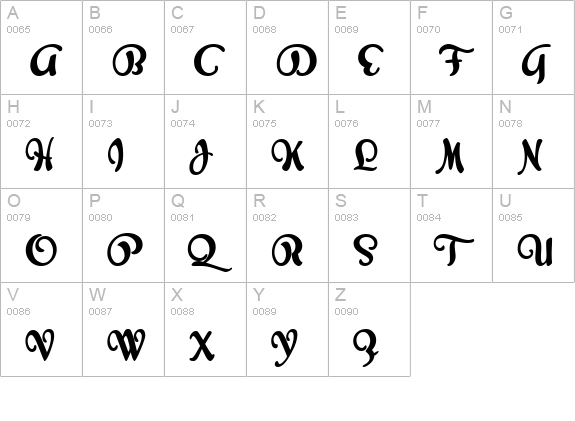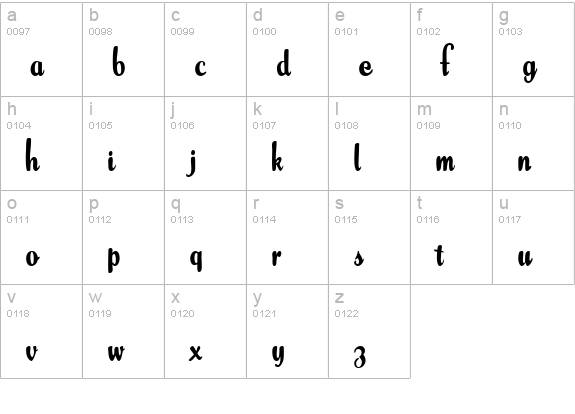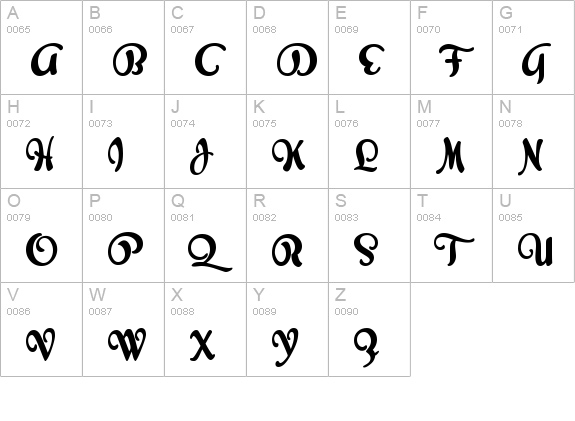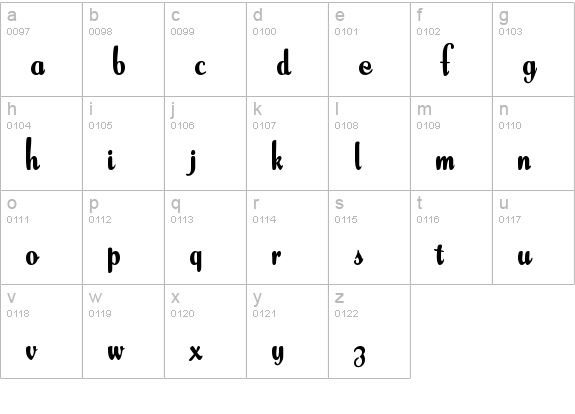
Scarlet Ribbons Font Details
Scarlet Ribbons font is a stunning display typeface that exudes elegance and sophistication. With its intricate details and graceful curves, this font is perfect for adding a touch of luxury to your designs. The Scarlet Ribbons font is versatile and can be used for various design projects, from branding to invitations to packaging. What sets this font apart is not only its exquisite design but also the fact that it is completely free to use. Yes, you read that right! Scarlet Ribbons font is freely available to download at FontsMarket.com, allowing you to add a touch of class to your projects without breaking the bank. So why wait? Download the Scarlet Ribbons font today and elevate your designs to new heights of style and sophistication.